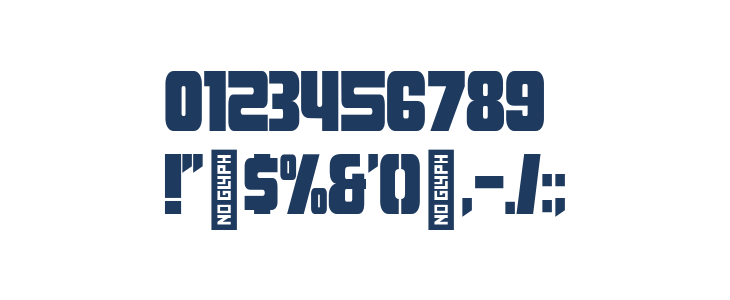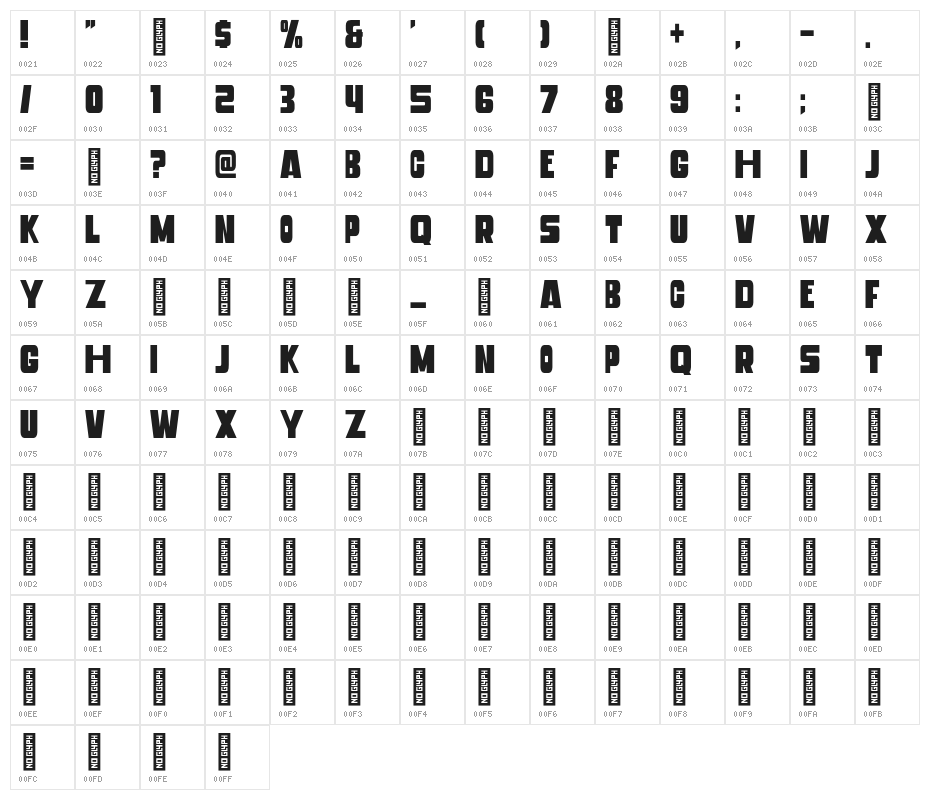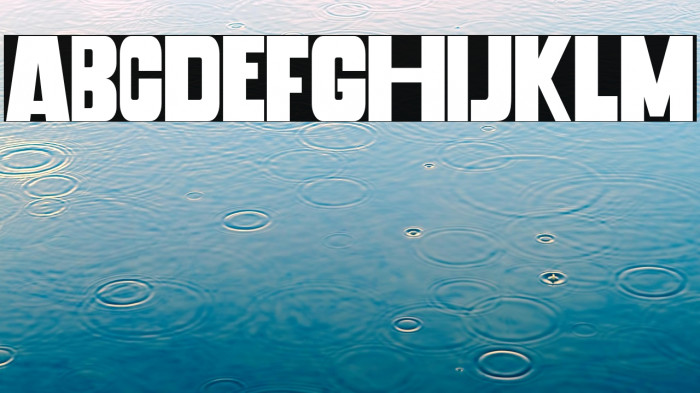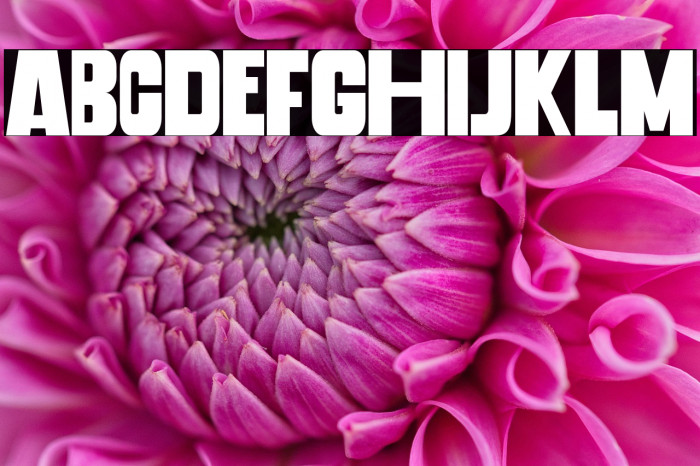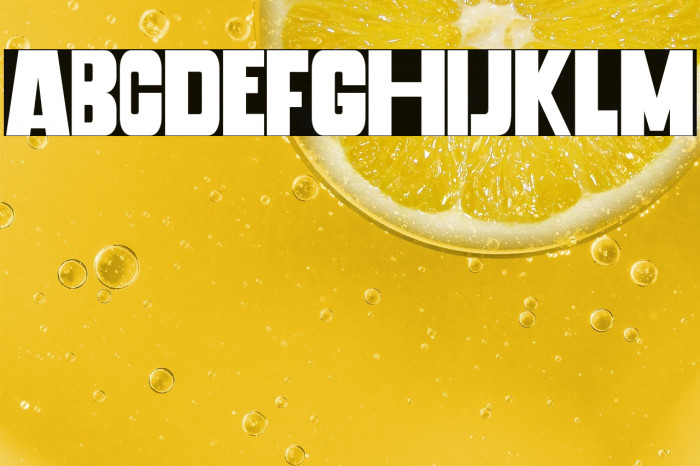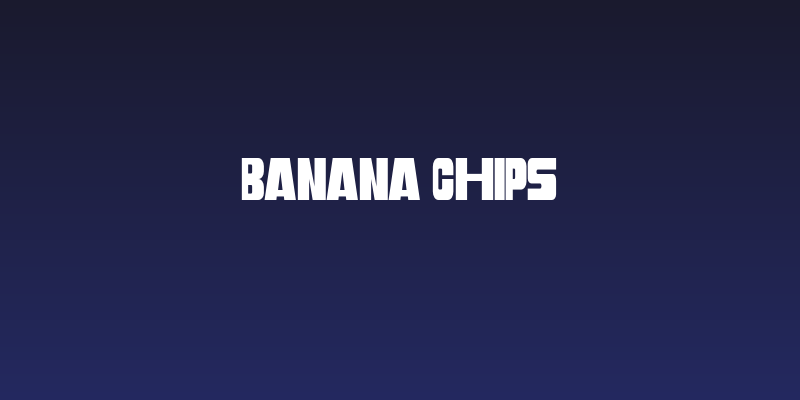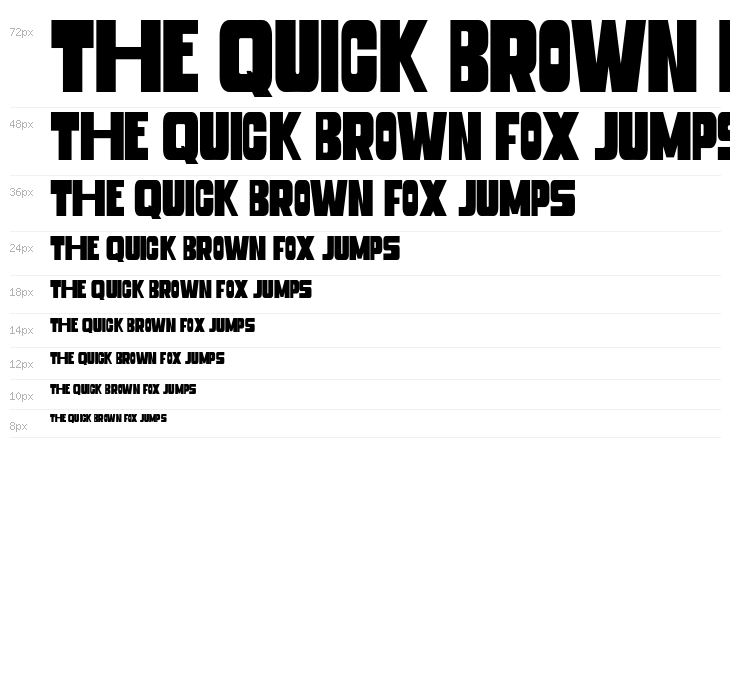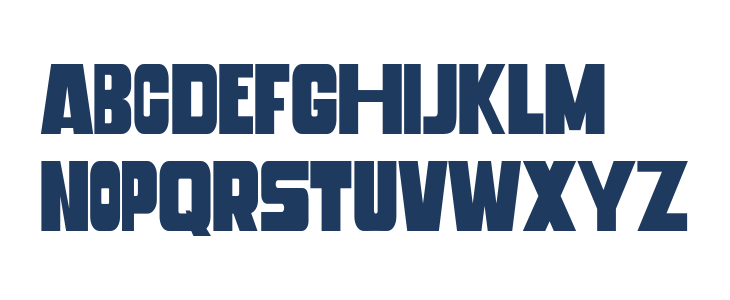
Banana Chips Font
Banana Chips Description
This font features a bold and impactful design with strong geometric shapes and a solid presence. The characters are uniformly wide, creating a sense of stability and strength. The uppercase letters are particularly striking, with a blocky appearance that commands attention. The numbers and special characters maintain the same bold style, ensuring consistency across all text elements. This font is ideal for making a statement, with its high contrast and thick strokes that ensure readability from a distance.